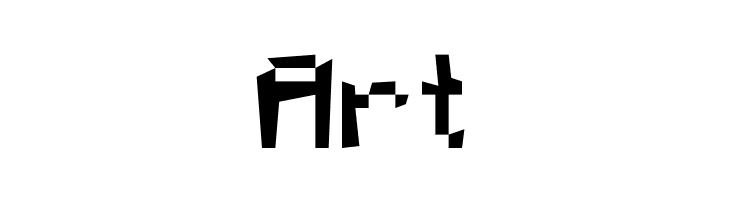
• FlamingoSolide
• FlappyBirdy Regular
A bold, pixelated font with a retro gaming aesthetic.
• Flash Back
A dynamic, cursive font with sharp, angular strokes and a handwritten feel.
• FlashDance
A bold, brush-style script font with dynamic, interconnected letters.
• FlavorMaker